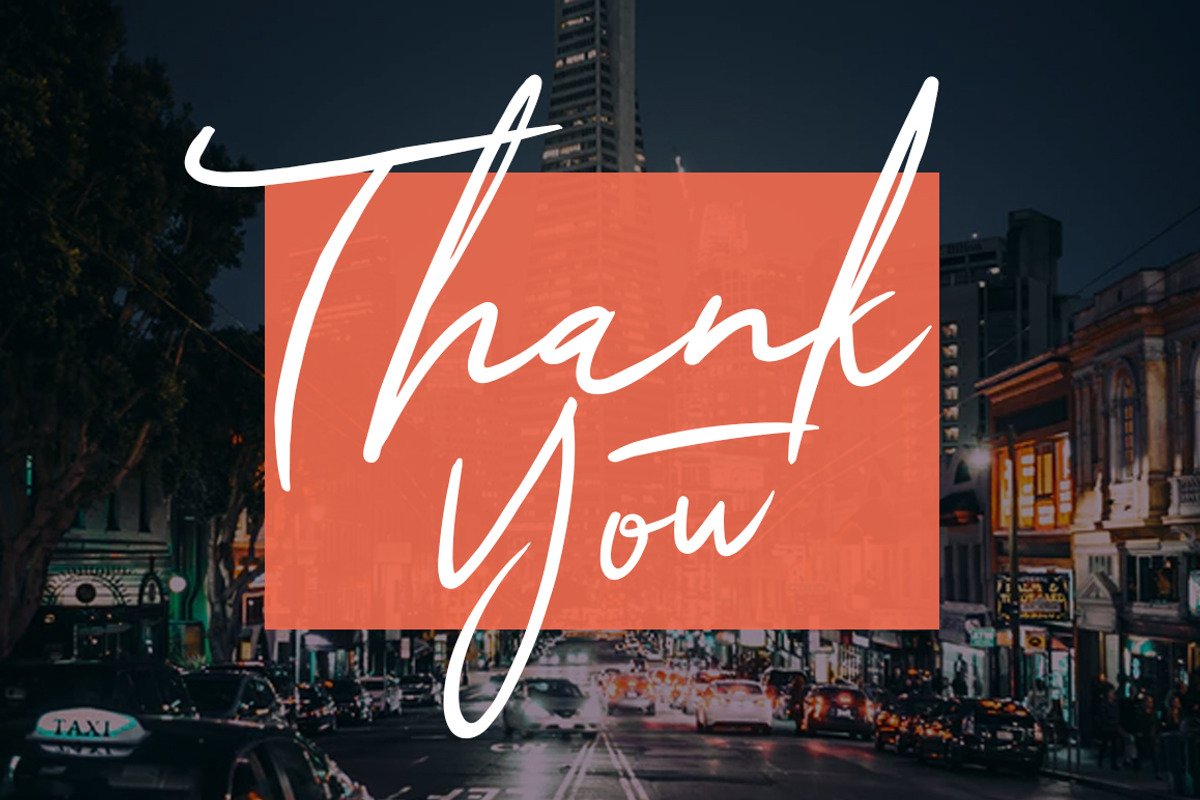
Allexis Signature Script
Introducing Allexis Signature Typeface - a font that is very fresh and unique style handmade. Allexis Signature Typeface is perfectly suited to logo, stationery, poster, apparel, branding, wedding invitation, card, tagline, layout design, and much more !!
- Punctuation & Numeral
- Support Multilingual